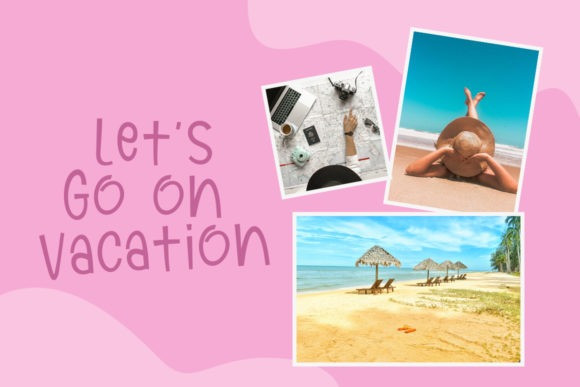
Marie Clara Display Font
Marie Clara Display Font by Khurasan 14,504 downloads
Marie Clara is cute and whimsical, but also casual. This versatile display font has a wide range of applications ranging from greeting cards to headlines, and is guaranteed to add a personal touch to your next design.